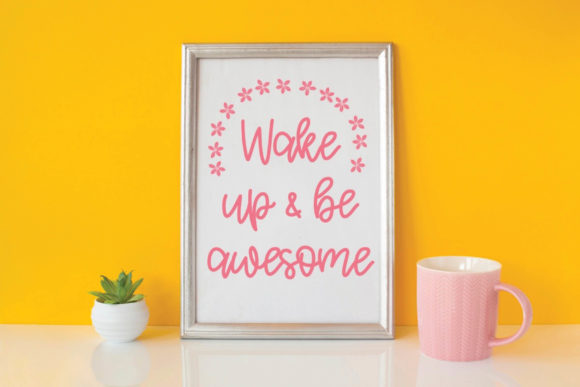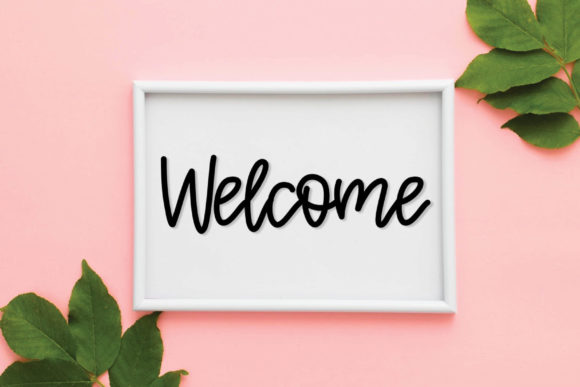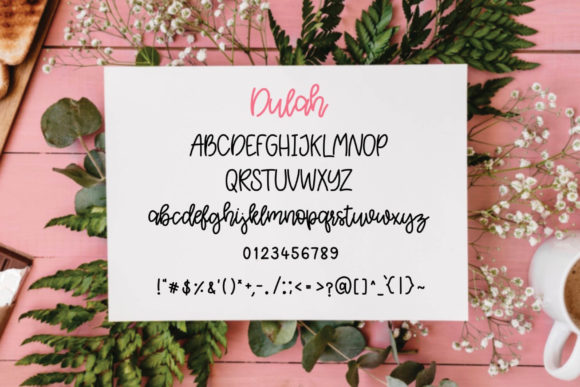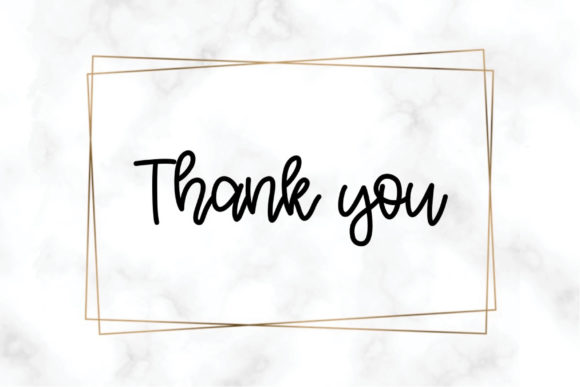
Dulah Font: A Charming Handwritten Font for DIY Projects
Are you a designer or crafter looking for a unique and authentic font to add a personal touch to your DIY projects? Look no further than the Dulah Font, a stunning handwritten font that combines the elegance of a brush pen and pencil to create a truly endearing and genuine look.
The Origins of Dulah Font
The Dulah Font is the result of a beautiful pairing of a brush pen and pencil, which gives it a distinctive and charming appearance. The font’s creator aimed to capture the essence of handwritten writing, and the result is a font that exudes warmth, personality, and character.
What Makes Dulah Font Special?
So, what sets Dulah Font apart from other fonts? Here are a few features that make it a standout:
- Unique and Handwritten: Dulah Font is a genuine handwritten font, created with a brush pen and pencil. This gives it a personal and authentic look that is hard to replicate with digital fonts.
- Endearing and Authentic: The font’s combination of brush pen and pencil strokes creates a delightful texture that is both endearing and authentic.
- Versatile: Dulah Font is perfect for a wide range of DIY projects, from crafting and scrapbooking to journaling and card making.
- Easy to Read: Despite its handwritten nature, Dulah Font is surprisingly easy to read, making it perfect for both personal and professional projects.
Using Dulah Font in DIY Projects
Dulah Font is an incredibly versatile font that can be used in a wide range of DIY projects. Here are a few ideas to get you started:
- Scrapbooking: Add a personal touch to your scrapbook pages with Dulah Font. Use it to title your pages, add captions to photos, or create journaling cards.
- Crafting: Dulah Font is perfect for crafters who love to create handmade cards, gift tags, and other paper crafts.
- Journaling: Use Dulah Font to add a touch of personality to your journal pages. Create headings, write journal entries, or add inspirational quotes.
- Card Making: Create beautiful handmade cards with Dulah Font. Use it to write messages, add titles, or create decorative elements.
Tips for Using Dulah Font
Here are a few tips for using Dulah Font in your DIY projects:
- Experiment with Colors: Dulah Font looks great in a variety of colors, so don’t be afraid to experiment. Try pairing it with bright colors, pastels, or monochromatic schemes.
- Mix and Match: Combine Dulah Font with other fonts or graphics to create a unique and eye-catching look.
- Keep it Simple: Don’t overcomplicate your design. Dulah Font is beautiful on its own, so let it shine by keeping your design simple and clean.
In conclusion, Dulah Font is a stunning handwritten font that is perfect for DIY projects. Its unique combination of brush pen and pencil strokes creates a beautiful texture that is both endearing and authentic. With its versatility, ease of use, and charming appearance, Dulah Font is a must-have for designers and crafters looking to add a personal touch to their projects.